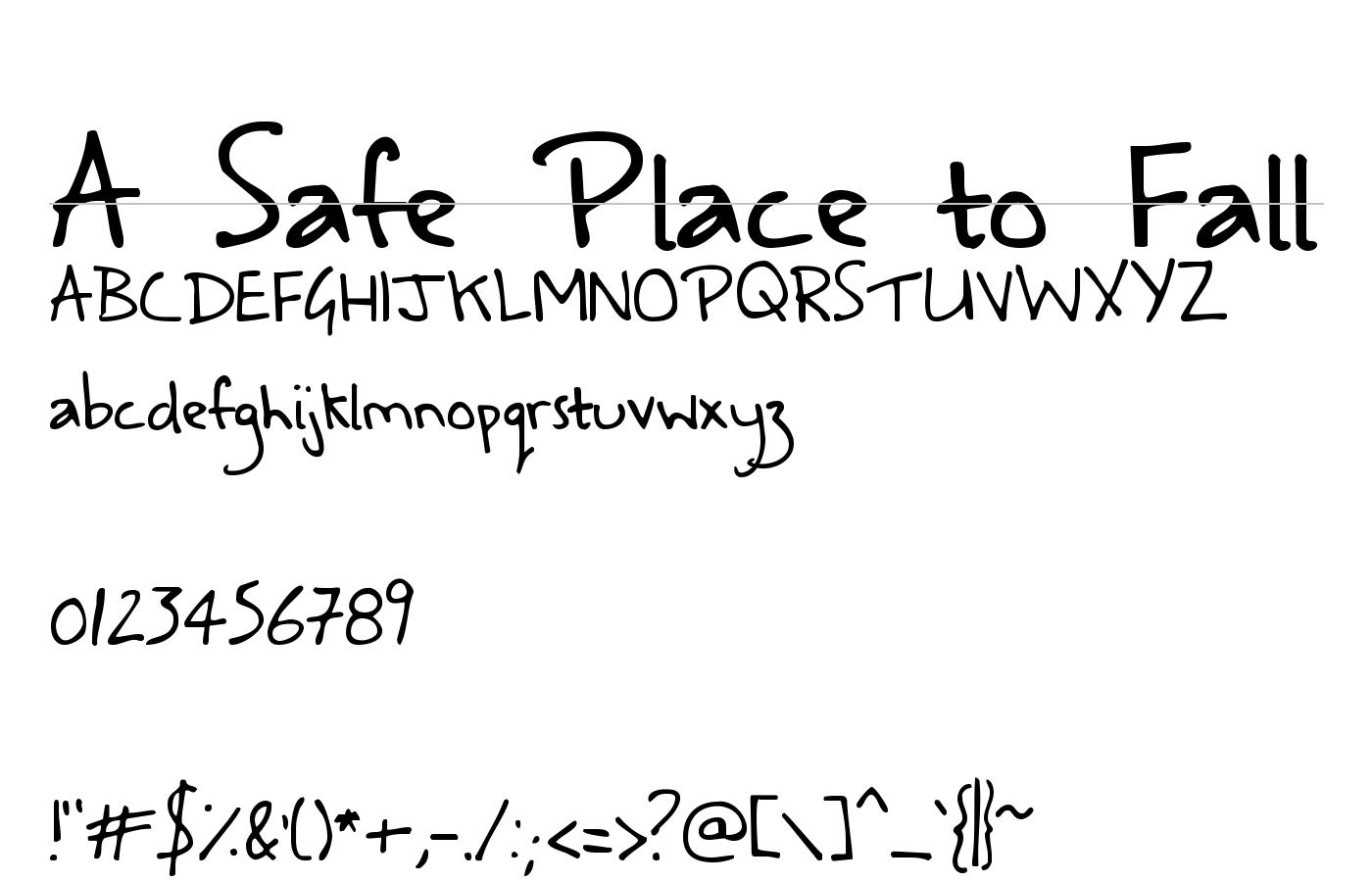
A Safe Place to Fall is a playful, handwritten sans serif font with a casual and friendly vibe. Its irregular, slightly tall letterforms and varying stroke thicknesses create a relaxed, approachable feel that works well for informal, creative, or whimsical designs. This font is ideal for personal projects, children’s books, logos, and any context that benefits from a warm, human touch.
A Safe Place to Fall Font
About A Safe Place to Fall Font
| Font family | A Safe Place to Fall Font |
| Designer | Kimberly Geswein |